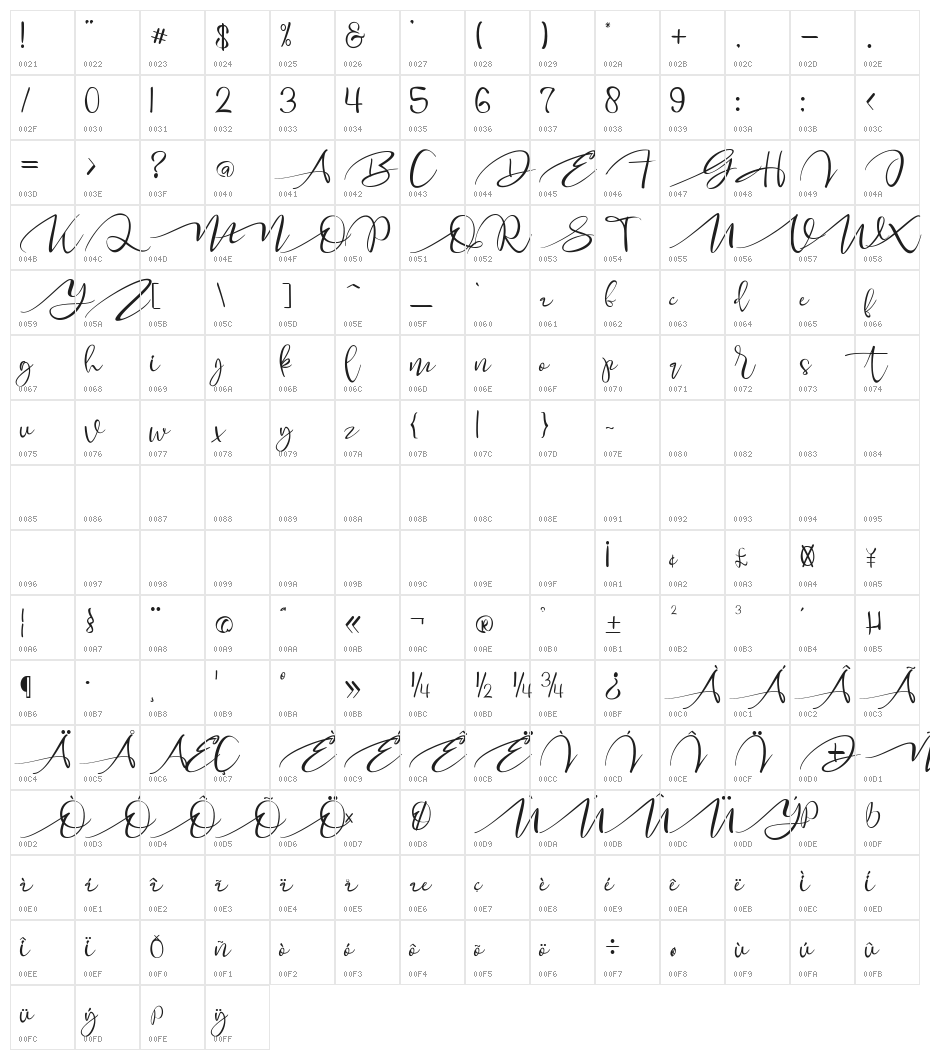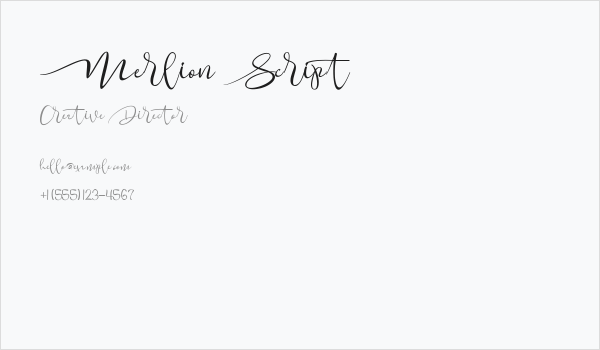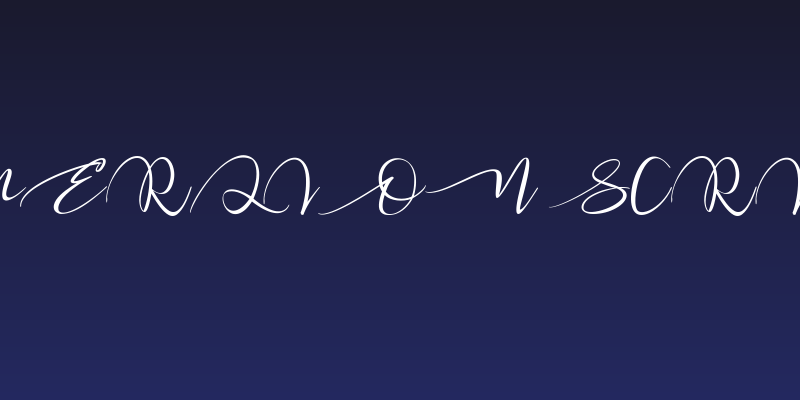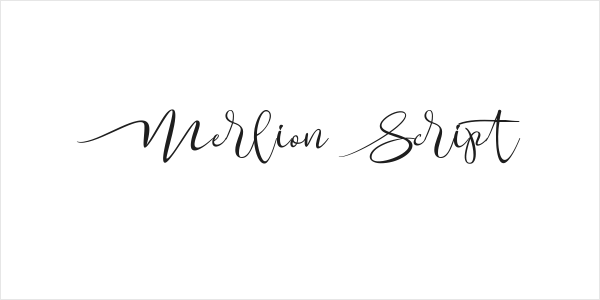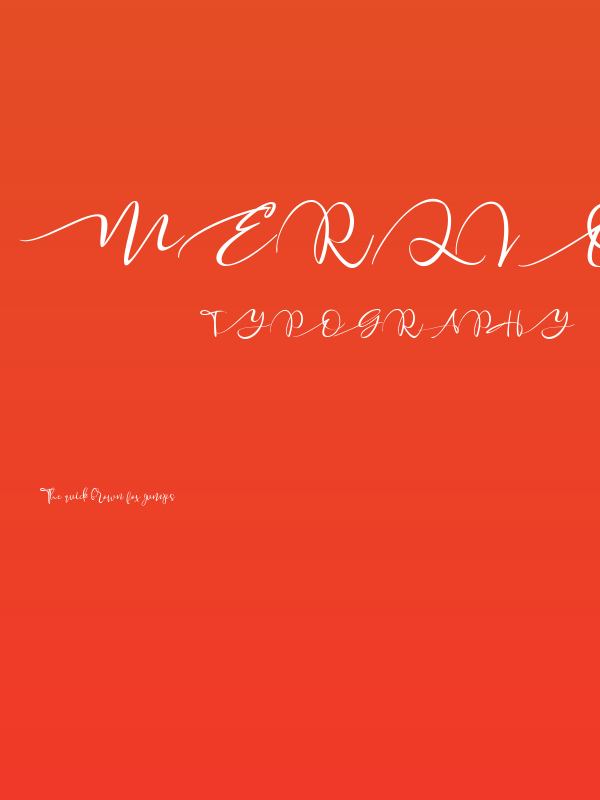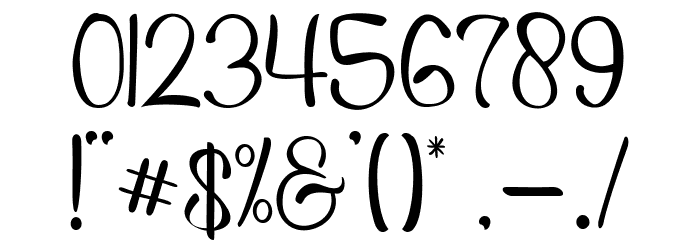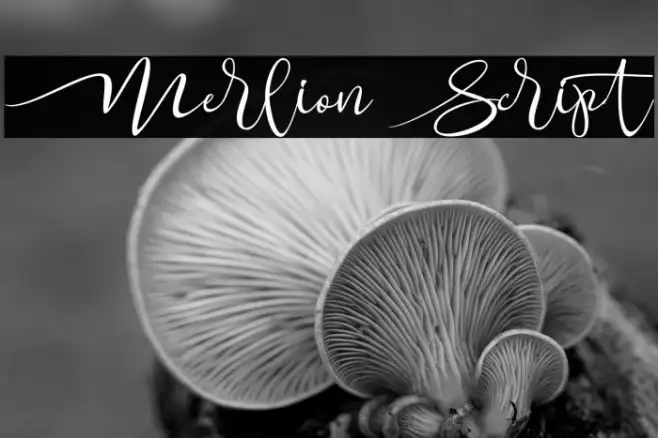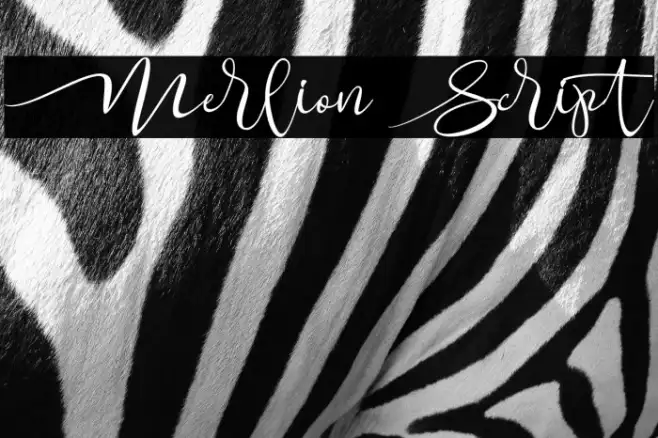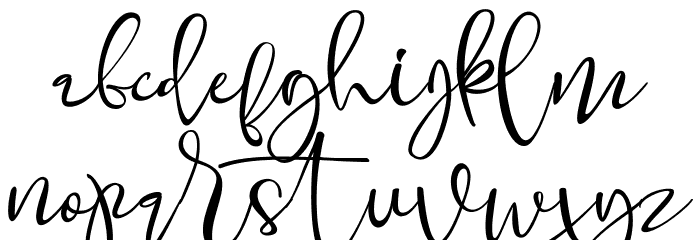
Merlion Script Font
Merlion Script Description
This font features a lively and flowing script style, characterized by its elegant and cursive letterforms. The uppercase letters are slender and elongated, with graceful loops and swashes that add a touch of sophistication. The lowercase letters are more rounded and bold, providing a nice contrast to the delicate uppercase. Numbers and special characters maintain the same fluidity, making them cohesive with the overall design. The font's playful yet refined appearance makes it suitable for a variety of creative projects.